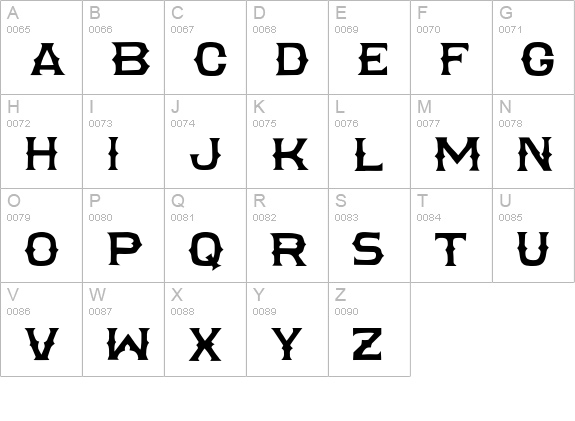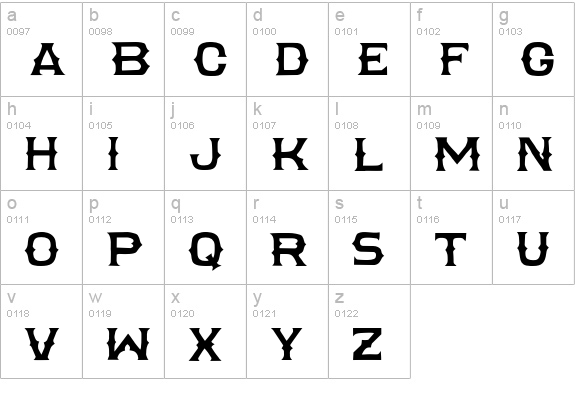
Sombra Font Details
Sombra font is a breathtaking typeface that captures the essence of elegance and modernity. Its sleek and sophisticated design effortlessly blends contemporary style with timeless appeal. Crafted with meticulous attention to detail, Sombra font showcases clean lines and perfectly balanced curves, making it an ideal choice for a wide range of design projects. This exquisite font has been skillfully crafted to enhance any creative endeavor, whether it's for branding, advertising, editorial design, or web design. Its versatility allows it to adapt seamlessly to various design styles, adding a touch of refinement and professionalism to any project. One of the most remarkable aspects of Sombra font is that it is available for free. Yes, you read that right – this incredible font can be downloaded without any cost. FontsMarket.com is proud to offer this exceptional font as a free resource for designers and creatives, enabling them to explore its unlimited potential and bring their visions to life. Downloading Sombra font from FontsMarket.com is quick and hassle-free, allowing you to start using it in your projects immediately. With its wide range of weights and styles, this font offers endless possibilities for customization and creativity. Whether you prefer a bold and impactful look or a more refined and elegant aesthetic, Sombra font has got you covered. Say goodbye to limitations and embrace the freedom of expression that Sombra font brings to your designs. Let your imagination run wild as you experiment with different layouts, colors, and typography combinations, knowing that this remarkable font will elevate your work to new heights. Don't miss out on this incredible opportunity to enhance your designs with the beauty and versatility of Sombra font. Visit FontsMarket.com today and experience the power of this extraordinary typeface – freely available and ready to download.